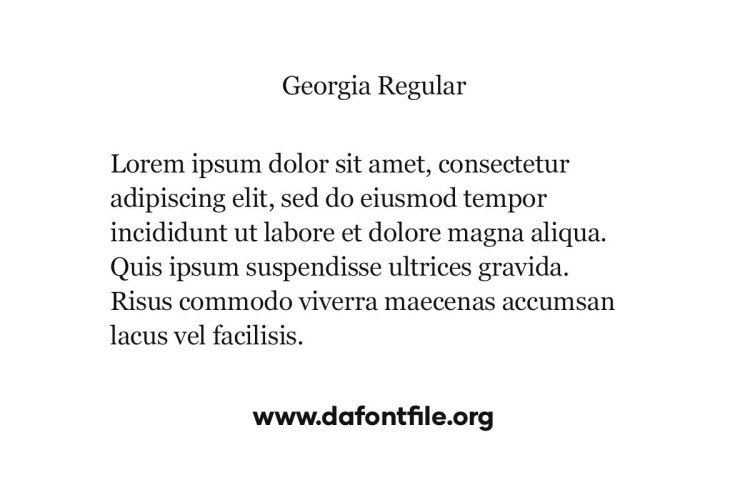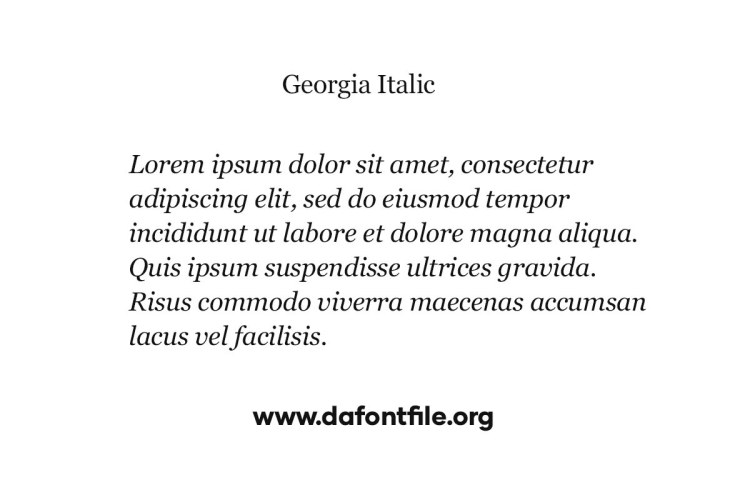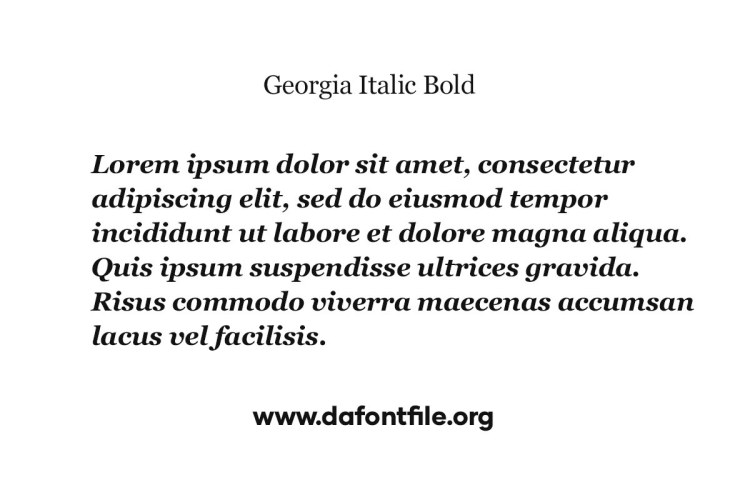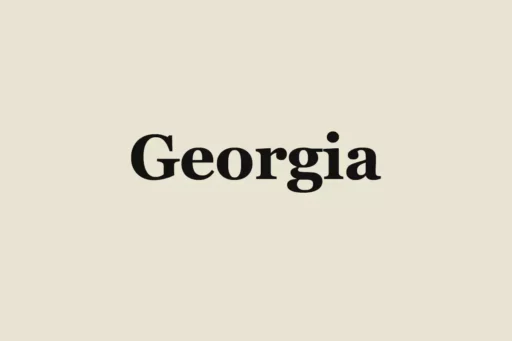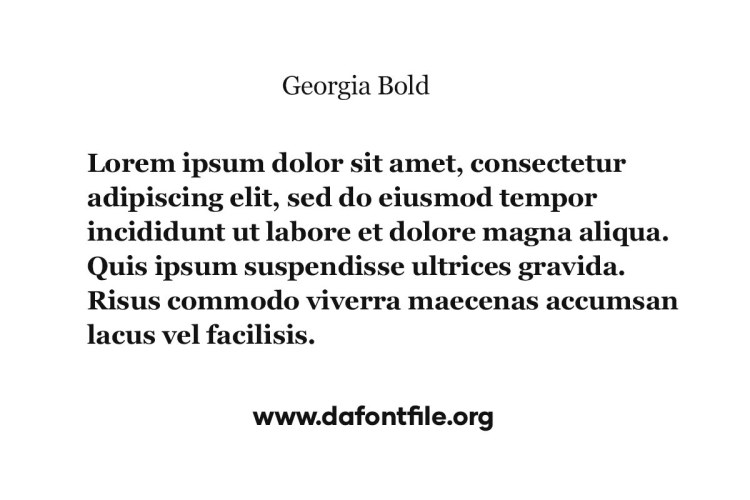
Georgia Font
Georgia is a classical serif font created by its designer Matthew Carter in 1993. It is now one of the most popular and easily recognizable brand logotypes in the world…
Georgia is a classical serif font created by its designer Matthew Carter in 1993. It is now one of the most popular and easily recognizable brand logotypes in the world of digital typography. Due to its sophistication and readability, Georgia is widely used in all forms of media, from print to screen, making it to the top for the covers and pages of many newspapers and magazines.
The history of the Georgia font started back in the early 1990s when Microsoft approached Matthew Carter to design a new serif font that would look good and be readable on low-screen resolution computers. Drawing inspiration from Scotch Roman designs of the 19th century, Carter created a font that had an x-height with large and sturdy serifs for a highly readable typeface, even at small sizes.
The font, appropriately called “Alien heads found in Georgia,” a tabloid headline that caught Carter’s eye, released in 1996 and became popular. Its simplicity, symmetry, and clear typography made it a hit among designers and consumers alike. Georgia has become the font of choice for numerous publications, and in 2007, even The New York Times decided to use Georgia as its standard font, thereby consolidating its status as one of the most timeless typefaces.
There are particular aspects of Georgia’s design that have made it remain popular up to this day due to the features that it has in terms of the aesthetic and practicality of the font. Some of the factors that make it easy to read include its large x-height, which refers to the height of the lowercase letters such as ‘x’, and this is particularly helpful when displaying text on screens since texts that are too small can be difficult to read. The x-height in Georgia is slightly larger than some other serif fonts, and this makes the letters in the font look sharper and more recognizable even when scaled down.
The font also has strong serifs; these are the small strokes at the end of the letters at the base or at the top of the letters. Because these serifs are clearly and sharply cut, they serve as visual signposts that lead the reader’s eye along the lines of text, enhancing reading speed and comfort. These serifs are not too large to make reading difficult but, at the same time, not so large that they call attention to themselves more than necessary.
One more characteristic of Georgia is its open counters: the interior shapes of letters ‘c’, ‘e’, and ‘a’. This type of counter is larger than in other typefaces, which makes the letters look not crowded and illegible when the font size is small, which often happens with fonts displayed on low-DPI screens. The open counters serve to make the text feel fresher and more open. Moreover, the fonts in the package come in OTF, TTF and Web Fonts (WOFF, WOFF2).
Georgia is very versatile and that is why it is a best font to choose in numerous fields. It is often selected by publishers for books, magazines, newspapers, and other printed products that require clear and easily readable text. Georgia is more popular among designers for web design, email, and online document applications. Its versatility in being easily readable on different screens and resolutions of different devices has made it widely used by many websites and blogs.
Even though Georgia is quite unique in its design, there are some similar fonts to incorporate in your design projects. Microsoft’s Times New Roman font is one of the most common and conservative serif fonts used in newspapers and academic papers for a professional and easily recognizable appearance. Another font that is close in look to Georgia is Miller by Matthew Carter, but with different proportions that make it feel slightly different but just as readable. Minion, a humanistic serif typeface, has a cheerful and unpretentious look; that is why it is an ideal choice for books and newspapers when the design requires more personality.
Georgia goes well with the sans-serif fonts such as Verdana, Arial, and Open Sans to create a harmony and esthetically appealing design.
Absolutely! Georgia’s readability is excellent for use as the body text in print and electronic publications.
Where Georgia Font works best
Georgia Font gives long-form text a classic, trustworthy rhythm — ideal for magazine spreads, annual reports and book interiors.
Pair Georgia Font with generous letter-spacing for wordmarks in fashion, hospitality, wine and jewellery branding.
Use Georgia Font for slide titles in Keynote, PowerPoint or Google Slides to add authority without looking dated.
What is Georgia Font good for?
Georgia Font is a Serif Fonts typeface tagged Classic, Elegant, Humanist, Readable. It works well for headlines, logos, posters, social media graphics and branding projects that need a distinctive serif fonts look.